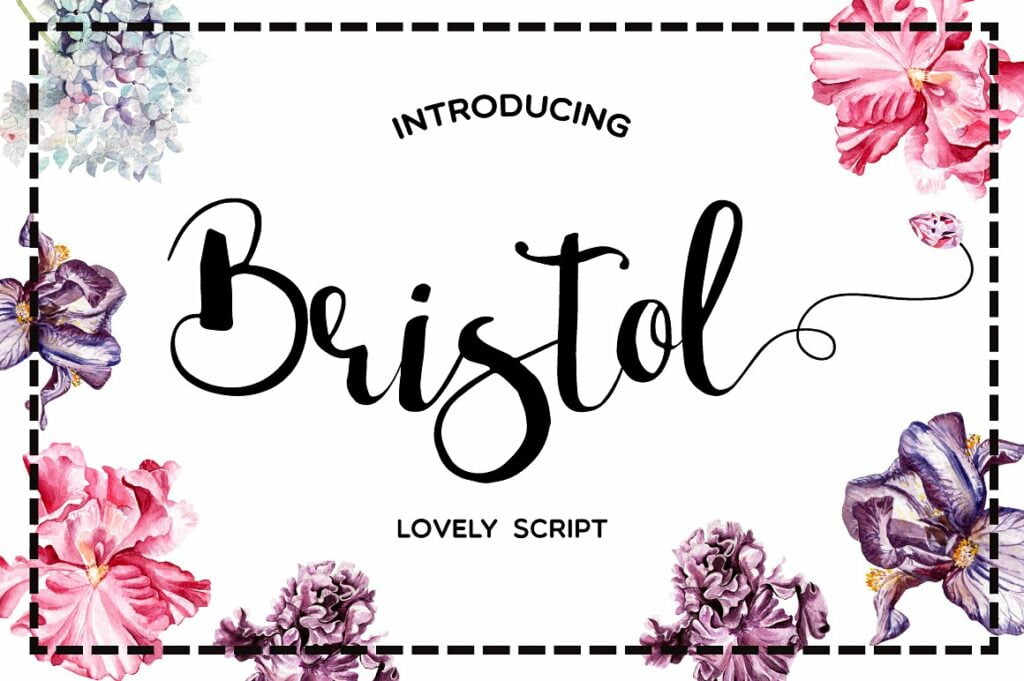
Bristol Script Font
Introduction Bristol Script Font! Bristol Script designed by Mellow Design Lab, this is a premium font, are sold on creativemarket, but it was great, it is free today for download. It’s hand lettering script font with ligatures, alternative ending and alternative initial. This fonts are perfect for wedding invitation or postcard for your friend.
Also with their help, you can create a logo or beautiful poster. Or just use for your small business.